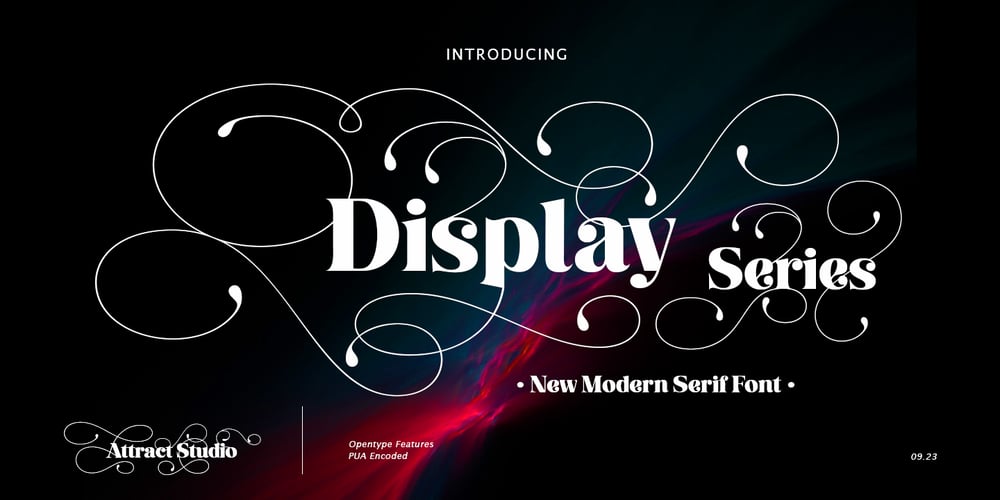
Display Series Font Family was designed by Muammar Kadafi and published by Attract Studio. Display Series contains 1 styles and family package options. Display Series is a modern and stylish elegant serif font that will add a touch of luxury to your project style. The Display Series is perfect for branding, editorial, monograms, wedding invitations, titles and more. Featuring OpenType and PUA encoded which means you can access all glyphs and swashes easily!